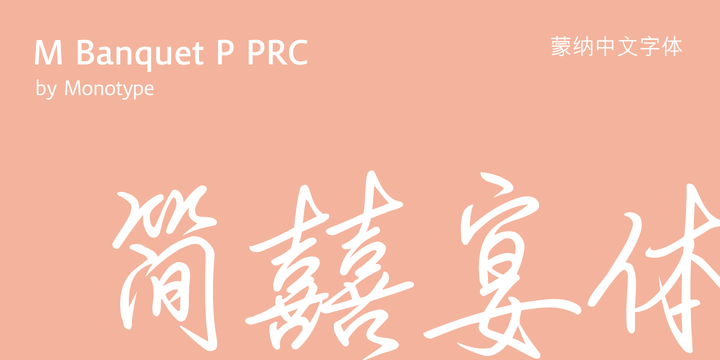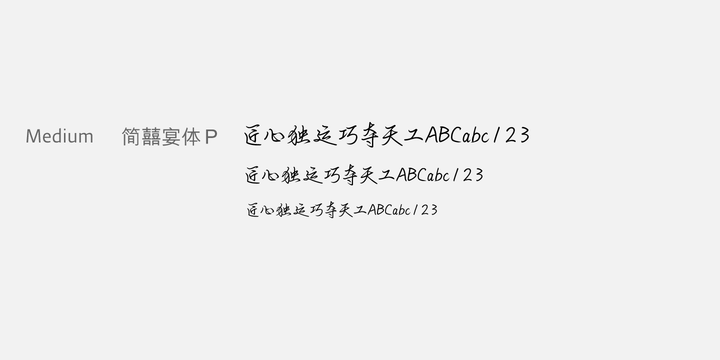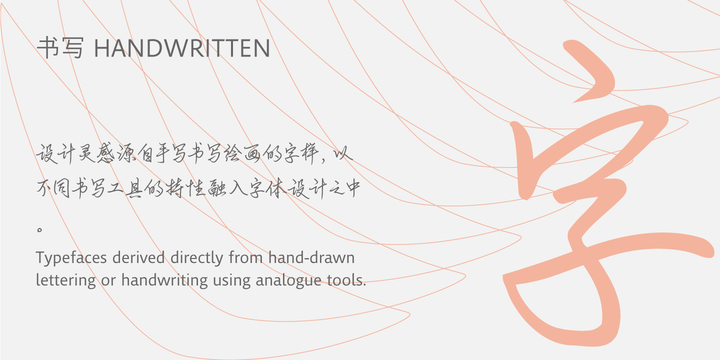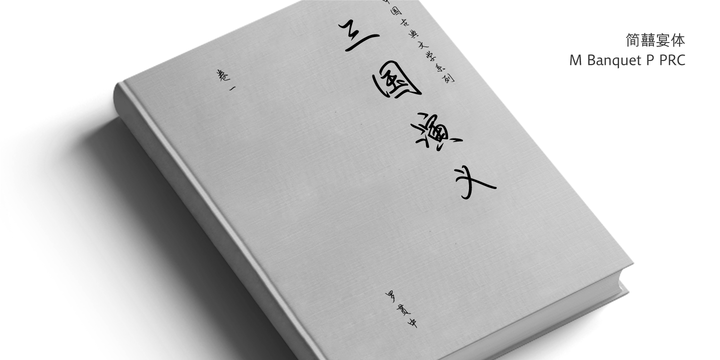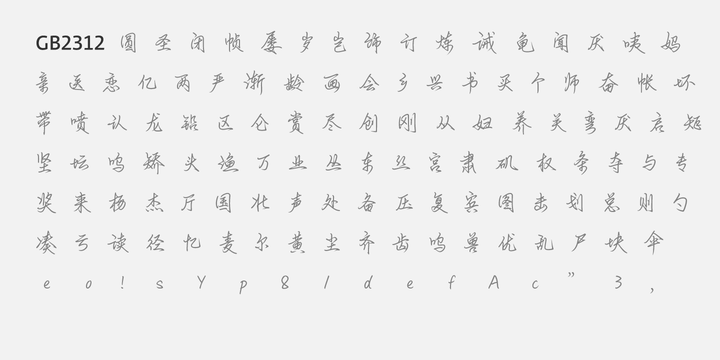
M Banquet is a humanistic script written by a Chinese restaurant owner, which the name Banquet comes from.
It is a calligraphic style that always being seen in traditional Chinese banquet menu.
Incorporated a feeling of masculinity, fill with strength and energy and attracts eyeballs of customers.
More It was written with a thin ball pen in a unique, personal and expressive writing style, such that it is realistic, natural and masculine.
Contrast of strokes is low and the text is visible and eye-catching. Its light to medium stems () make it suitable for small text to subheading with little conglutination.
All strokes are irregular, inconsistent, irregularly oriented and tightly coupled. Spatial distribution, positioning, size and relative proportion of radicals fully reflect a natural and personal style.
It is one of the few proportional-width font in a full scale. It is best suited for casual lively atmosphere, illustrations, set upright (non-slanted), non-condensed.